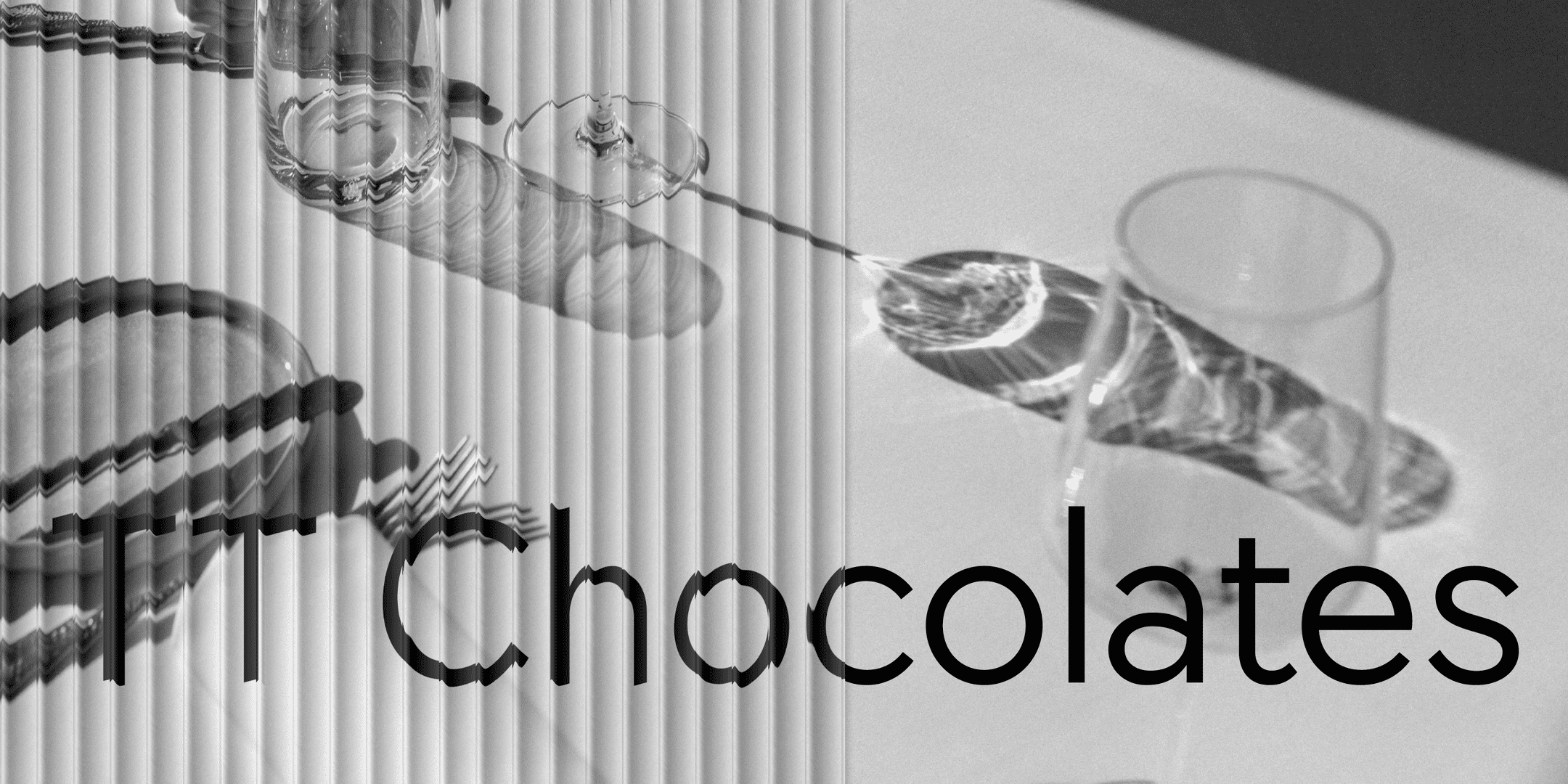
TT Chocolates Font
TT Chocolates Font is perfect for artisanal chocolate branding, premium confectionery packaging, luxury dessert menus, gourmet bakery signage, sweet treat marketing campaigns, upscale café identities, indulgent food photography, cocoa product labeling, and decadent culinary experiences.
What makes TT Chocolates Font exciting is its sumptuous character design combined with rich indulgent appeal that perfectly captures the luxurious essence of fine chocolate craftsmanship. The font's smooth, flowing letterforms and delectable visual texture deliver irresistible sweetness while maintaining superior legibility, making it the premier choice for confectionery brands seeking to communicate artisanal quality, premium indulgence, and gourmet excellence to chocolate connoisseurs.
TT Chocolates Font family includes comprehensive weight variations from Light to Bold, along with elegant italic styles and decorative cocoa-inspired elements, providing complete design solutions for creating cohesive luxury chocolate branding and premium confectionery marketing across upscale sweet treat markets.
This delectable typeface embodies the artistry and passion of master chocolatiers in every carefully tempered letterform. TT Chocolates Font Free Download presents chocolate manufacturers and gourmet food designers with an exceptional opportunity to create brand identities that resonate with consumers seeking premium indulgent experiences and artisanal quality. Whether you're launching luxury chocolate brands, designing gourmet dessert packaging, or creating upscale patisserie identities, this font family delivers the sophisticated sweetness needed to command premium positioning in competitive confectionery markets.
The luscious character flow and refined chocolate-inspired aesthetics create instant craving among luxury food enthusiasts while communicating artisanal craftsmanship and indulgent pleasure. Advanced typographic features support elegant brand storytelling about cocoa origins and chocolate-making traditions.
TT Chocolates Font stands out through its unique ability to evoke both luxury and desire simultaneously. This remarkable typeface doesn't just label confectionery products—it creates anticipation and sensory appeal, making it an invaluable asset for chocolate brands competing in markets where emotional connection and premium perception drive consumer indulgence and brand loyalty decisions.